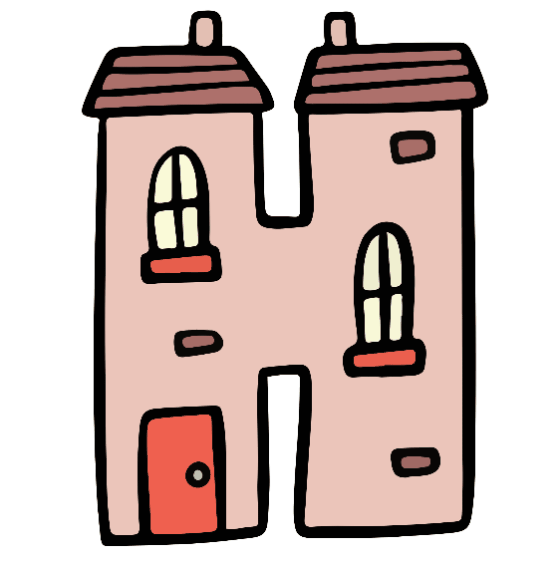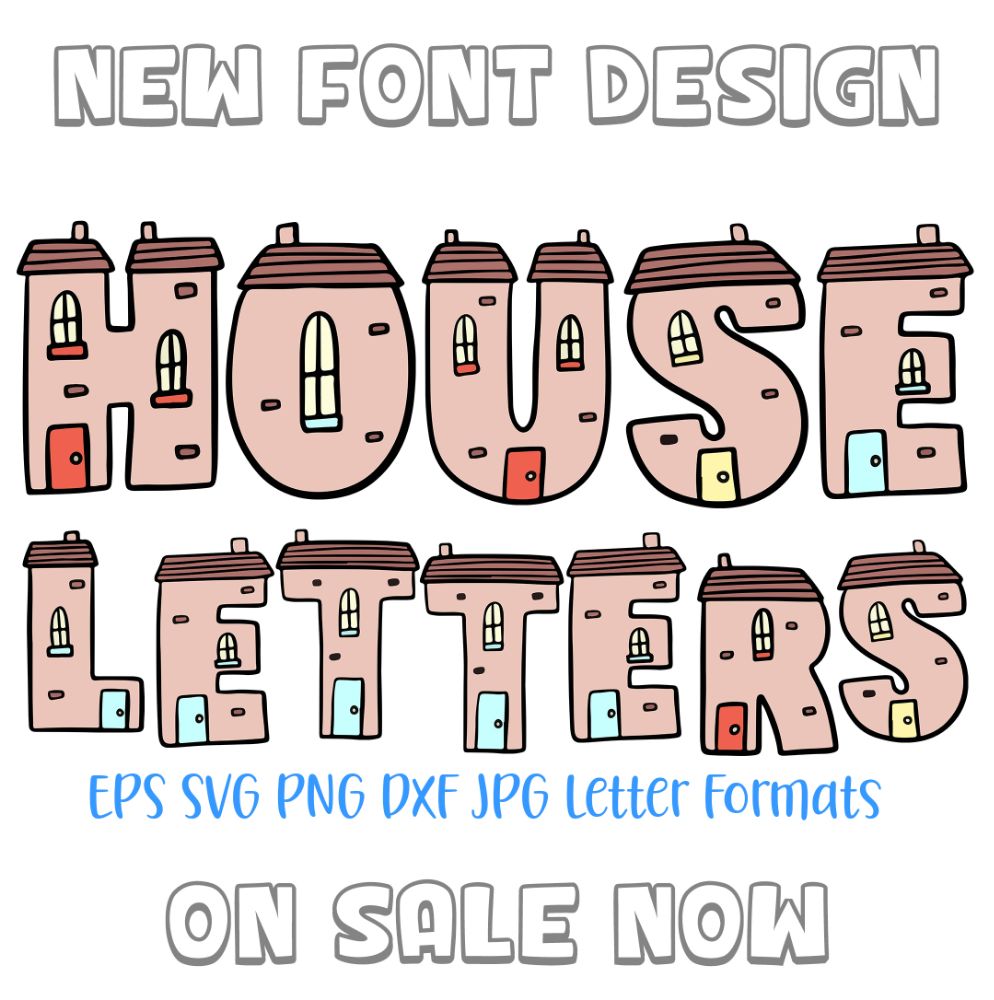
A new happy houses font design! Each letter has little windows and doors. I came up with the idea when I was having a cheeky pint down the pub… Brain lubricant.